Beauty brands use typography as a powerful tool to build trust in an industry where consumers apply products directly to their skin, hair, and body. Because of this close personal contact, brands are expected to feel safe, transparent, and credible from the very first impression.
Fonts influence how a beauty brand is perceived before a customer even reads the message. Clean typography can suggest safety and professionalism, while cluttered or poorly chosen fonts can raise doubts. In this article, we’ll explore how beauty brands use typography to build trust and why thoughtful font choices matter in modern beauty branding.
Why Trust Is Critical for Beauty Brands
Beauty products are deeply personal. Customers want reassurance at every touchpoint.
Typography Shapes First Impressions
Before ingredients, claims, or reviews, typography sets the tone. A clear, calm font instantly feels more trustworthy than a decorative or chaotic one.
Fonts Influence Emotional Comfort
Typography affects how comfortable consumers feel. Balanced spacing, readable letterforms, and consistent font usage help reduce uncertainty and create confidence.
How Beauty Brand Typography Communicates Trust
Typography sends subtle signals that shape perception.
Clean Typography Signals Transparency
Beauty brands that value honesty often use simple, legible fonts. Clear typography suggests that the brand has nothing to hide, especially important for ingredients and product claims.
Consistency Builds Reliability
Using the same typography across packaging, websites, and marketing materials reinforces brand reliability. Inconsistent fonts can make a brand feel unprofessional or unreliable.
Key Characteristics of Trust-Building Beauty Brand Typography
Not all fonts create the same emotional response. Beauty brand typography that builds trust often shares these traits.
High Readability
Readable fonts reduce effort for the user. This is crucial for:
- Ingredient lists
- Instructions
- Certifications and disclaimers
Balanced Simplicity
Trustworthy typography avoids extremes. It is not overly playful, but not cold or technical either.
Calm Visual Rhythm
Even spacing and thoughtful line height create a sense of order and control, qualities associated with safety and professionalism.
Serif vs Sans-Serif in Beauty Brand Typography
Both font styles are widely used, depending on the brand’s positioning.
Sans-Serif Fonts for Modern Trust
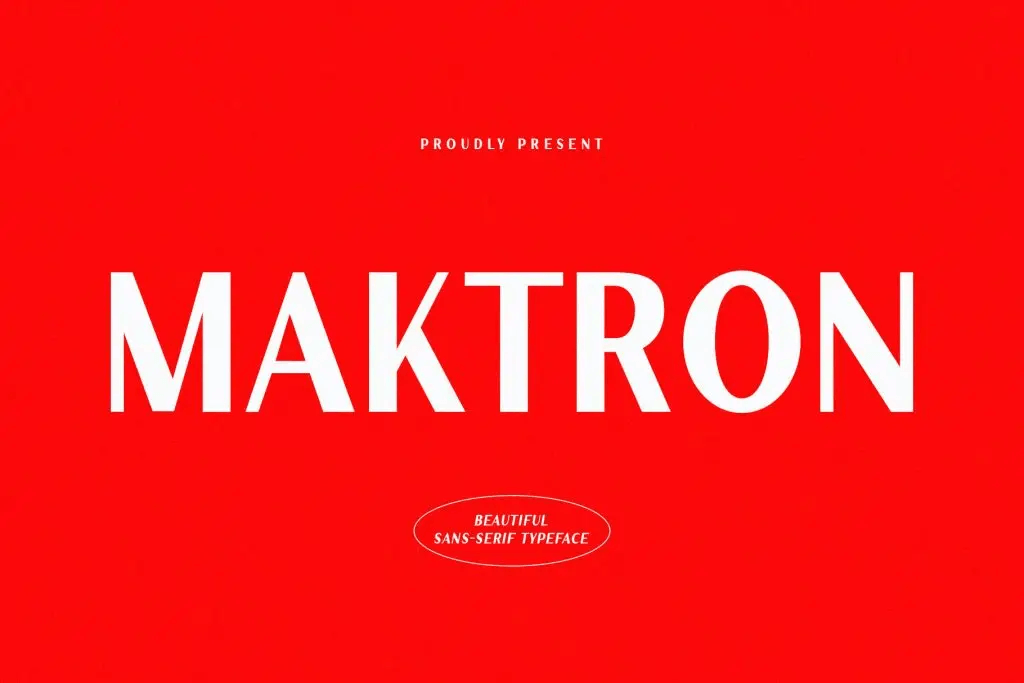
Sans-serif fonts feel clean, minimal, and straightforward.
They are often used by:
- Skincare brands
- Clean beauty labels
- Dermatology-inspired products
These fonts communicate clarity, science, and modern care.
Serif Fonts for Heritage and Authority
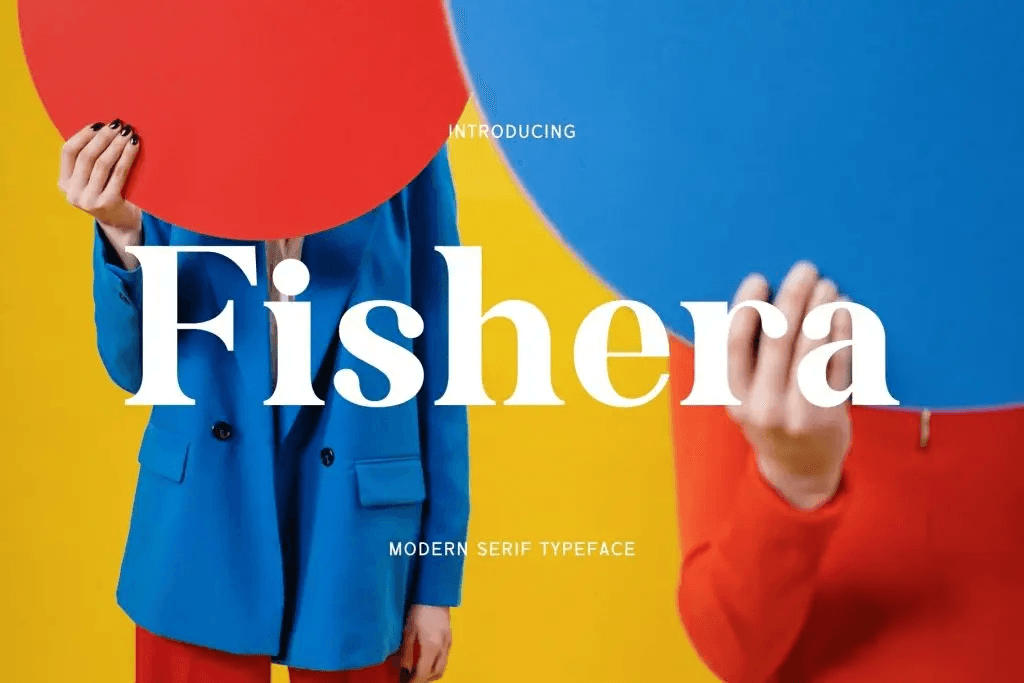
Serif fonts are associated with tradition and expertise.
They work well for:
- Luxury beauty brands
- Heritage cosmetics
- Editorial-style storytelling
Serif typography can make a brand feel established and credible.
Typography on Beauty Packaging and Labels
Packaging is where trust is tested most directly.
Clear Typography Improves Product Confidence
Beauty consumers read labels carefully. Fonts must be:
- Easy to read at small sizes
- Clear on different materials
- Well contrasted with the background
Confusing typography can undermine trust, even if the product is high quality.
Minimal Design Reinforces Honesty
Many trusted beauty brands use minimal typography on packaging to reduce visual noise and highlight essential information.
How Beauty Brand Typography Influences Buying Decisions
Typography affects how customers feel at the moment of purchase.
Clear Fonts Encourage Confidence
Readable typography helps consumers feel informed and reassured.
Calm Design Reduces Perceived Risk
Balanced typography reduces anxiety, especially for skincare and wellness products.
Familiar Typography Builds Loyalty
Consistent font usage helps customers recognize and trust the brand over time.
Typography as Part of Ethical and Transparent Beauty Branding
Trust is closely linked to ethics and transparency.
Beauty brands that focus on ethical sourcing and honest messaging often choose typography that:
- Feels human and approachable
- Avoids exaggerated claims
- Supports clear communication
Typography becomes a visual reflection of the brand’s values.
Final Thoughts on Beauty Brand Typography and Trust
Typography is not just a design detail; it is a trust-building tool. Beauty brand typography helps shape how safe, honest, and credible a brand feels from the first glance to long-term loyalty.
By choosing fonts that are readable, consistent, and emotionally balanced, beauty brands can strengthen trust across packaging, digital platforms, and marketing campaigns. In a competitive industry, thoughtful typography quietly reassures customers that they are making the right choice.